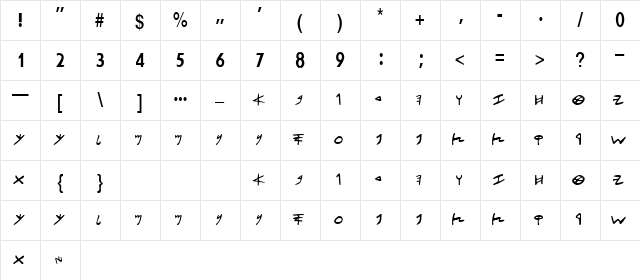
MoabiteSSK Regular Free Font
MoabiteSSK Regular
Design Context for MoabiteSSK
MoabiteSSK is a composed and adaptable typeface that performs quietly and consistently across a wide range of design contexts.
Pro Tip: Use MoabiteSSK in both headline and body roles to test its range before committing to a single application.